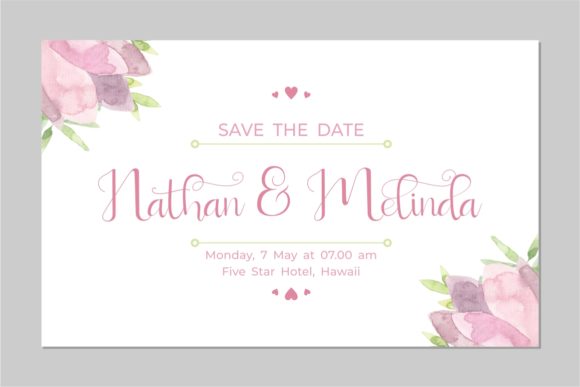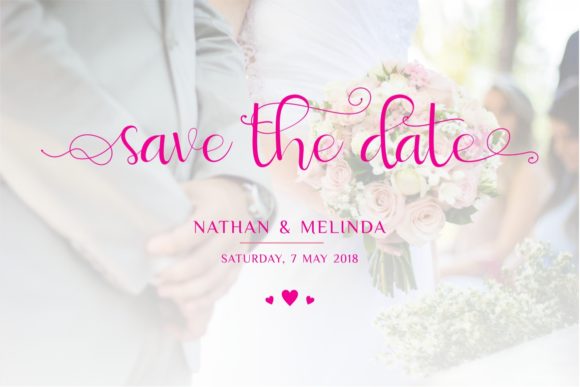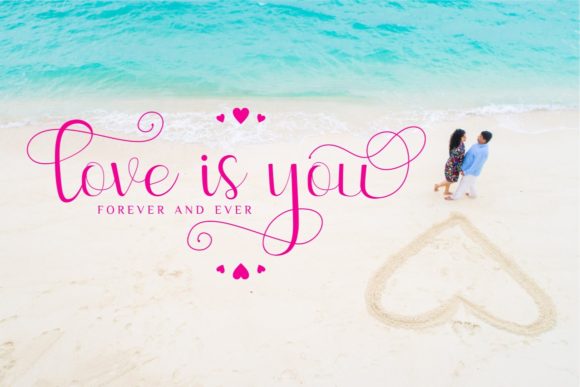
About Sweetyhearts Font
Introducing “The Sweetyhearts,” a modern calligraphy script font designed to bring a girly and feminine style, adding a touch of luxury to your projects. This font is more than just a typeface; it’s a design asset crafted with a luxurious feel, making it perfect for branding, letterheads, wedding invitations, cards, and more.
“The Sweetyhearts” stands out with its modern calligraphy script that exudes a sense of elegance and femininity. The girly and feminine style of the font makes it particularly well-suited for designs that aim to convey a luxurious and sophisticated aesthetic.
Its versatility allows “The Sweetyhearts” to seamlessly adapt to different design contexts. Branding materials and letterheads benefit from the font’s elegant and modern calligraphy, creating a memorable and stylish visual identity. Wedding invitations and cards crafted with “The Sweetyhearts” carry a romantic and luxurious vibe, setting the tone for special occasions.
Whether you’re working on digital or print projects, “The Sweetyhearts” adds a touch of refinement to your designs. The font’s luxurious feel makes it a perfect choice for creating a distinctive and upscale look in a variety of creative applications.
In summary, “The Sweetyhearts” is more than just a font; it’s a design companion that brings a modern calligraphy script style to your projects. Embrace its girly and feminine charm for branding, wedding invitations, letterheads, and more, and let “The Sweetyhearts” elevate your designs with a luxurious and sophisticated touch.